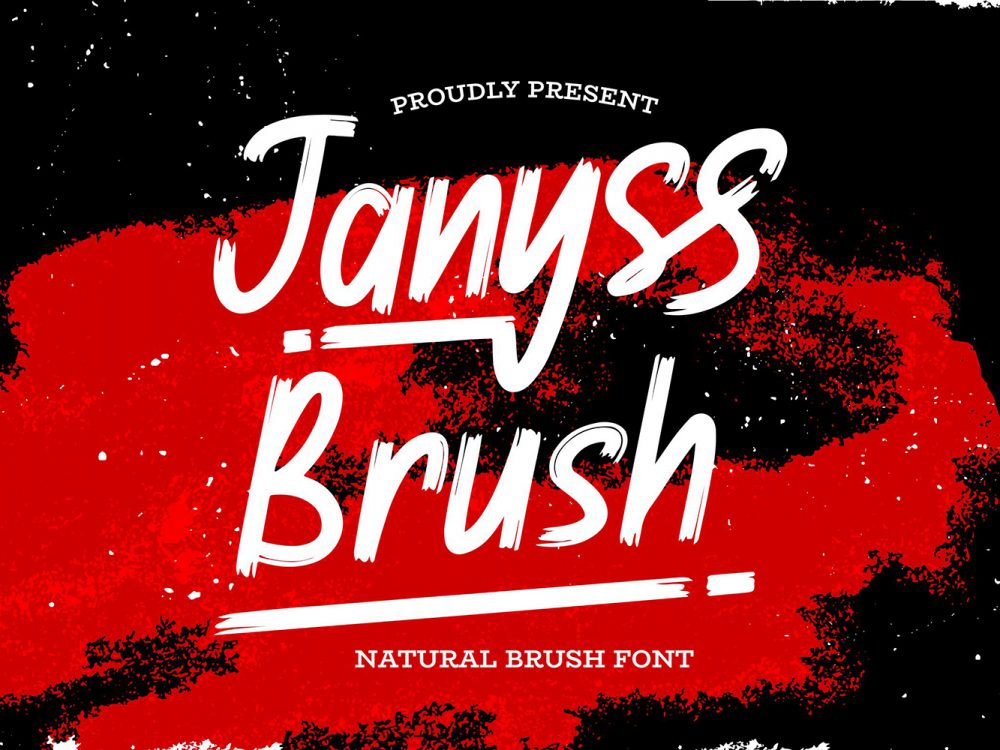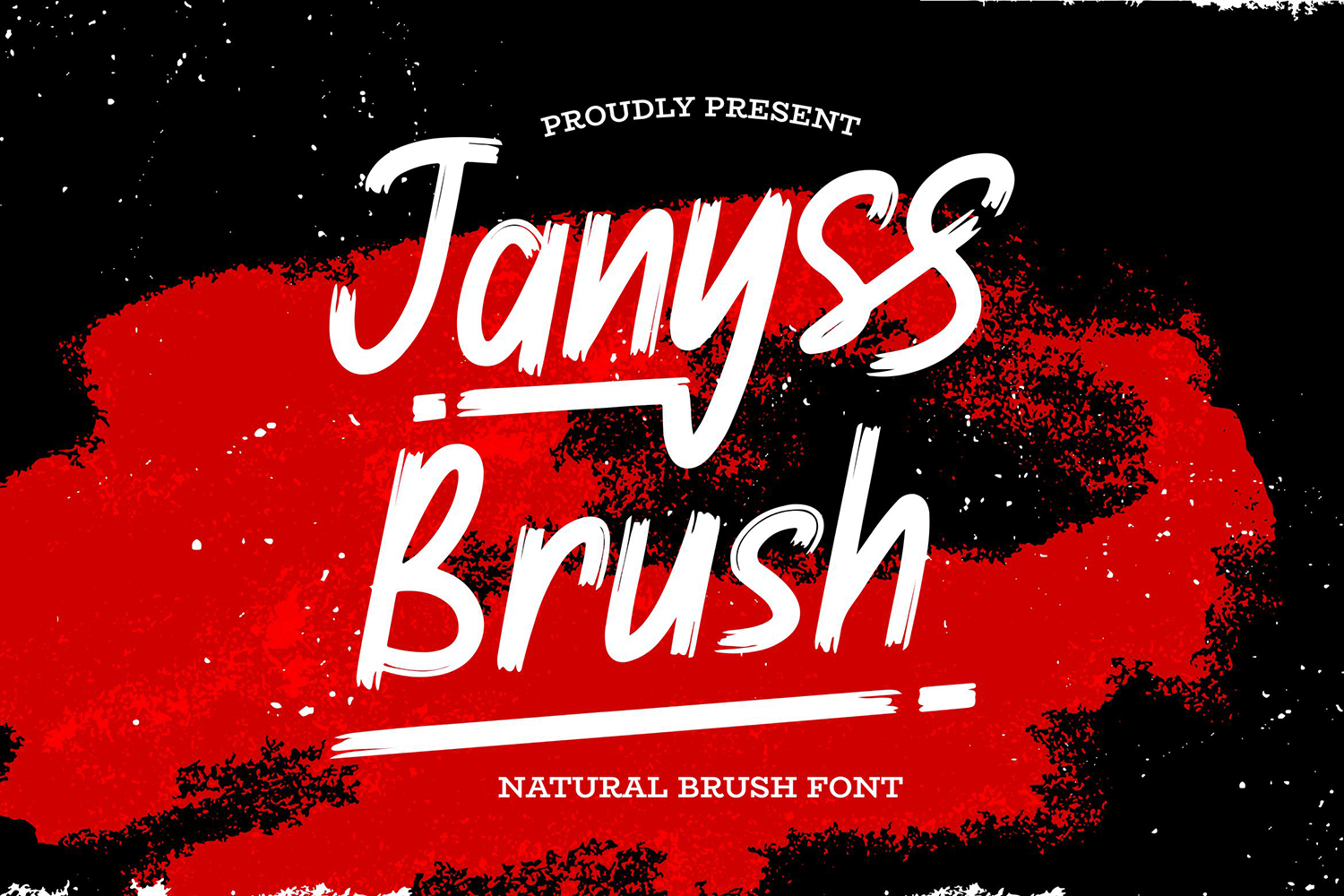
Janyss Brush Free Font
Janyss Brush Free Font is a stylish modern handwritten font that simulates brush writing and will help you create unique design projects and improve your professional level. Use this font to create memorable posters, wedding invitations, cards, branding, flyers, and more. If you like it don’t forget to check out the full version.